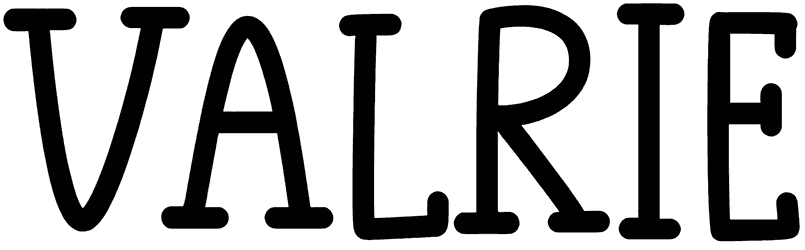
Valrie Font
Minimal and cute lettering, like what this Valentine’s Day font will provide for your words, would be a nice selection for many designs, like a summer party Instagram post. Valrie font can serve you as a ravishing letterform to leave a lasting impression on your viewers. Even though it doesn’t have lowercase letters, you can use it with your creativity.